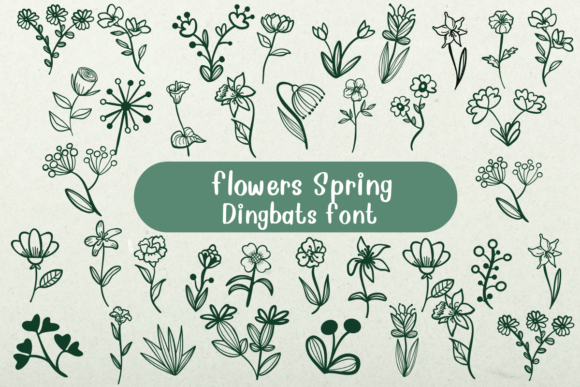
Unleashing Your Inner Artist: Discover the Beauty of Flower Spring Font
Have you ever found yourself staring at a blank canvas, feeling the creative juices flow, and suddenly, a burst of inspiration strikes? The room is filled with colors, patterns, and textures, and before you know it, your imagination runs wild. This is the moment when creativity knows no bounds, and the possibilities are endless. For designers, artists, and crafty enthusiasts, this feeling is a regular occurrence, and it’s exactly what makes our job so rewarding.
One of the tools that can help you unlock your full creative potential is the Flower Spring Font – a stunning dingbat font featuring delicate flowers that can elevate your projects to the next level. Whether you’re designing wedding invitations, crafting decorations, or creating logos, this beautiful font is the perfect addition to your toolkit.
With the Flower Spring Font, you can add a touch of elegance and whimsy to your designs, making them truly unique and memorable. Its versatility and beauty make it an invaluable asset for designers, and we can’t wait to share its secrets with you.
Flower Spring Font Key Features
- Unique Characteristics: The Flower Spring Font features a unique blend of floral and spring-inspired elements, with intricate details and subtle texture, making it perfect for designs that require a touch of elegance and whimsy.
Flower Spring Font Review
Overall, I’m quite impressed with the Flower Spring Font. It’s a beautiful, hand-drawn design that’s perfect for spring or summer-themed projects. The font’s delicate, whimsical feel adds a touch of elegance to any text.
- The font’s intricate details and floral patterns are a standout feature.
- The font is highly customizable, with various styles and weights to choose from.
- The font’s legibility is good, even at smaller font sizes.
- The font is compatible with a wide range of platforms and devices.
- The font may be too delicate for use in bold or heavy text, as it can become difficult to read.
- The font’s intricate details can make it difficult to pair with other fonts, as it may clash with simpler designs.
- The font may not be suitable for use in formal or corporate settings, due to its whimsical nature.
In conclusion, the Flower Spring Font is a lovely addition to any designer’s toolkit. While it has some limitations, its unique charm and customization options make it a great choice for spring or summer-themed projects, or for designers looking to add a touch of elegance to their work.
Flower Spring Font is a beautiful, whimsical font perfect for:
- Children’s party decorations and invitations.
- Floral-themed branding and marketing materials.
Remember to pair Flower Spring Font with a clear and readable font for optimal results.